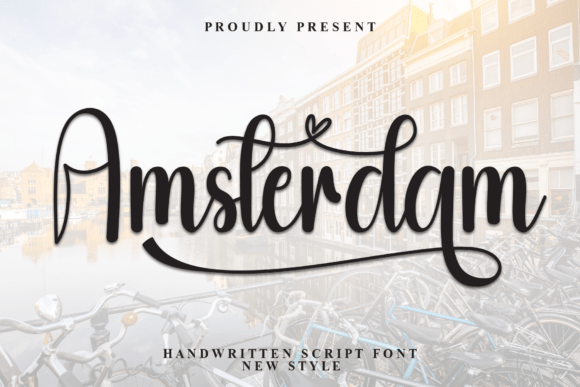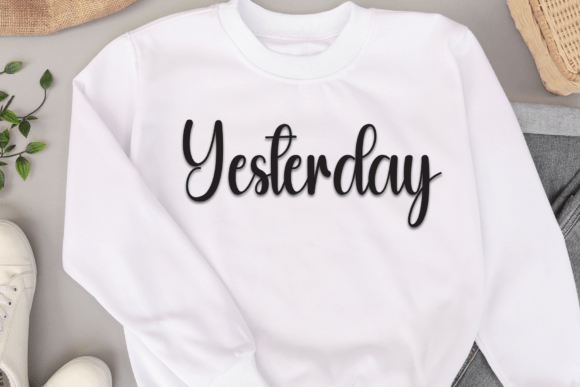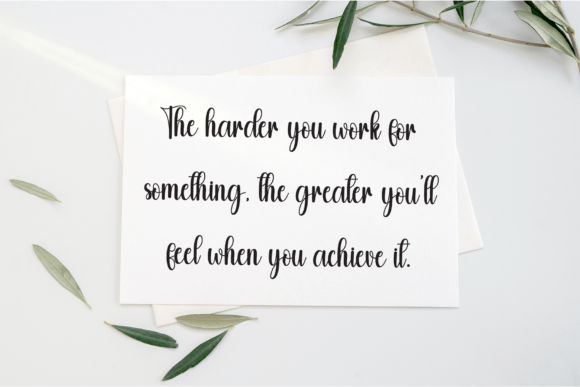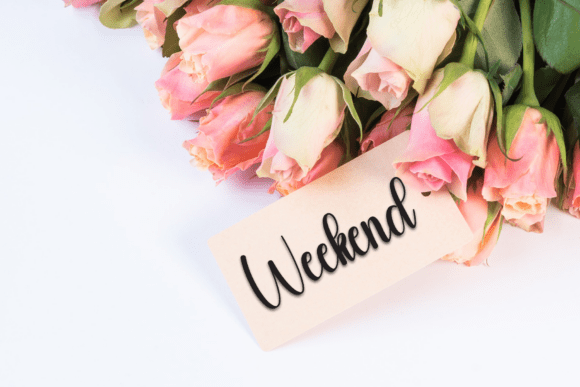
Amsterdam Font: Elegant Handwritten Script for Branding & Social Media
About the Amsterdam Font
Crafted with precision, the Amsterdam Font is ready to bring your ideas to life. Amsterdam is a stylish handwritten script font that blends modern elegance with a playful touch. Its fluid strokes and charming curves bring a personal feel to any design. Ideal for logos, packaging, and invitations, this typeface adds warmth, sophistication, and creativity to every project.
Amsterdam Font Usage Examples
Amsterdam Font Example